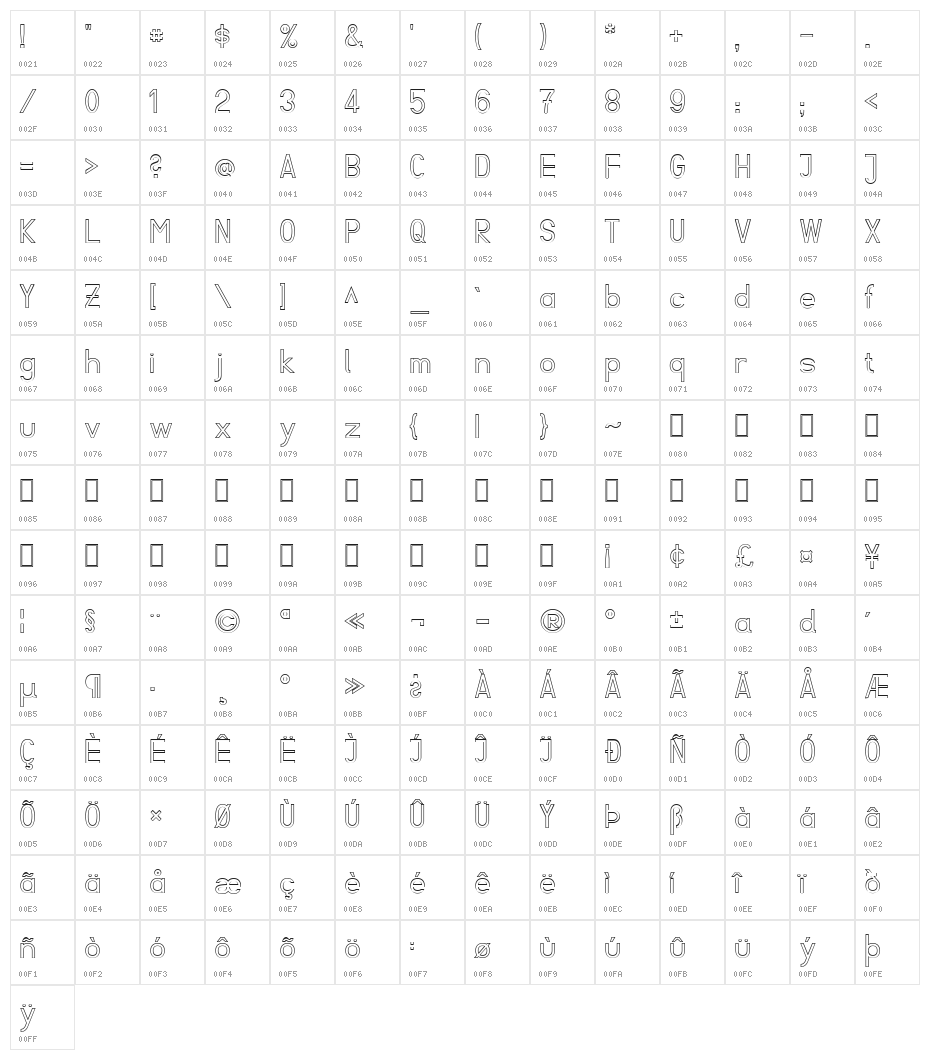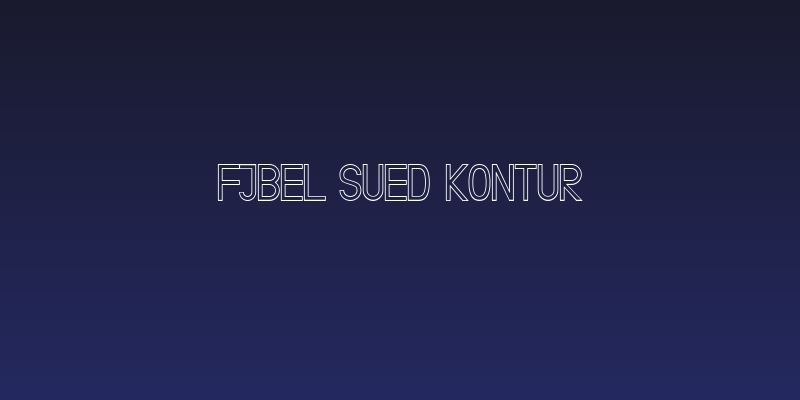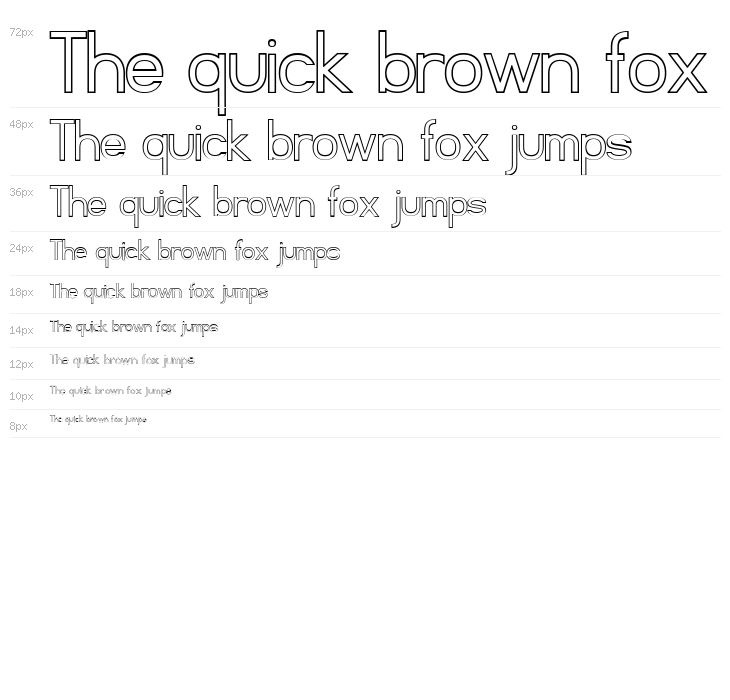
Fibel Sued Kontur Font
Fibel Sued Kontur Description
This font features a clean, geometric design with a hollow, outlined style. The uppercase and lowercase letters maintain a consistent width, creating a uniform appearance. The numerals and special characters follow the same outlined pattern, ensuring cohesion across all characters. The font's structure is modern and minimalistic, making it suitable for contemporary design projects. Its open, airy form gives it a distinctive look that stands out in both digital and print media.
| Use Case | Logos, Posters, Digital Media |
| Proposed Projects | Ideal for branding, logos, posters, and digital media where a modern and distinctive look is desired. |